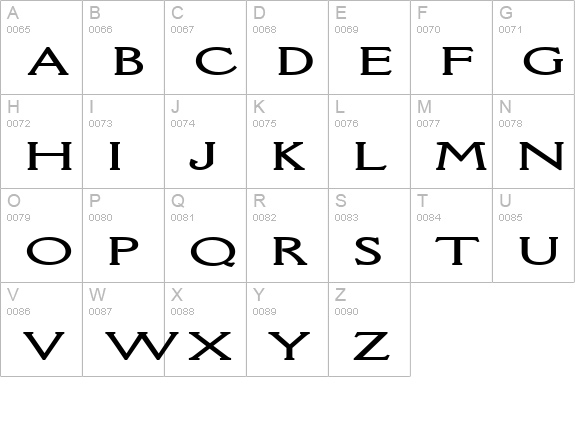
Rory Extended Bold is a strong, high-contrast, extended-width variant in the Rory typeface family \xE2\x80\x94 well suited to headlines, attention-grabbing titles, and strong calls-to-action.
Rory Extended Bold font is a versatile and modern typeface that exudes strength and sophistication. With its bold and eye-catching design, Rory Extended Bold is perfect for making a statement in various design projects. The clean lines and sharp edges of this font make it ideal for headlines, titles, and logos. Best of all, Rory Extended Bold is available for free download at FontsMarket.com. This means you can easily access this high-quality font and use it in your projects without any cost. Whether you're creating posters, websites, or branding materials, Rory Extended Bold will add a touch of elegance and professionalism to your designs. Download it today and elevate your typography game!